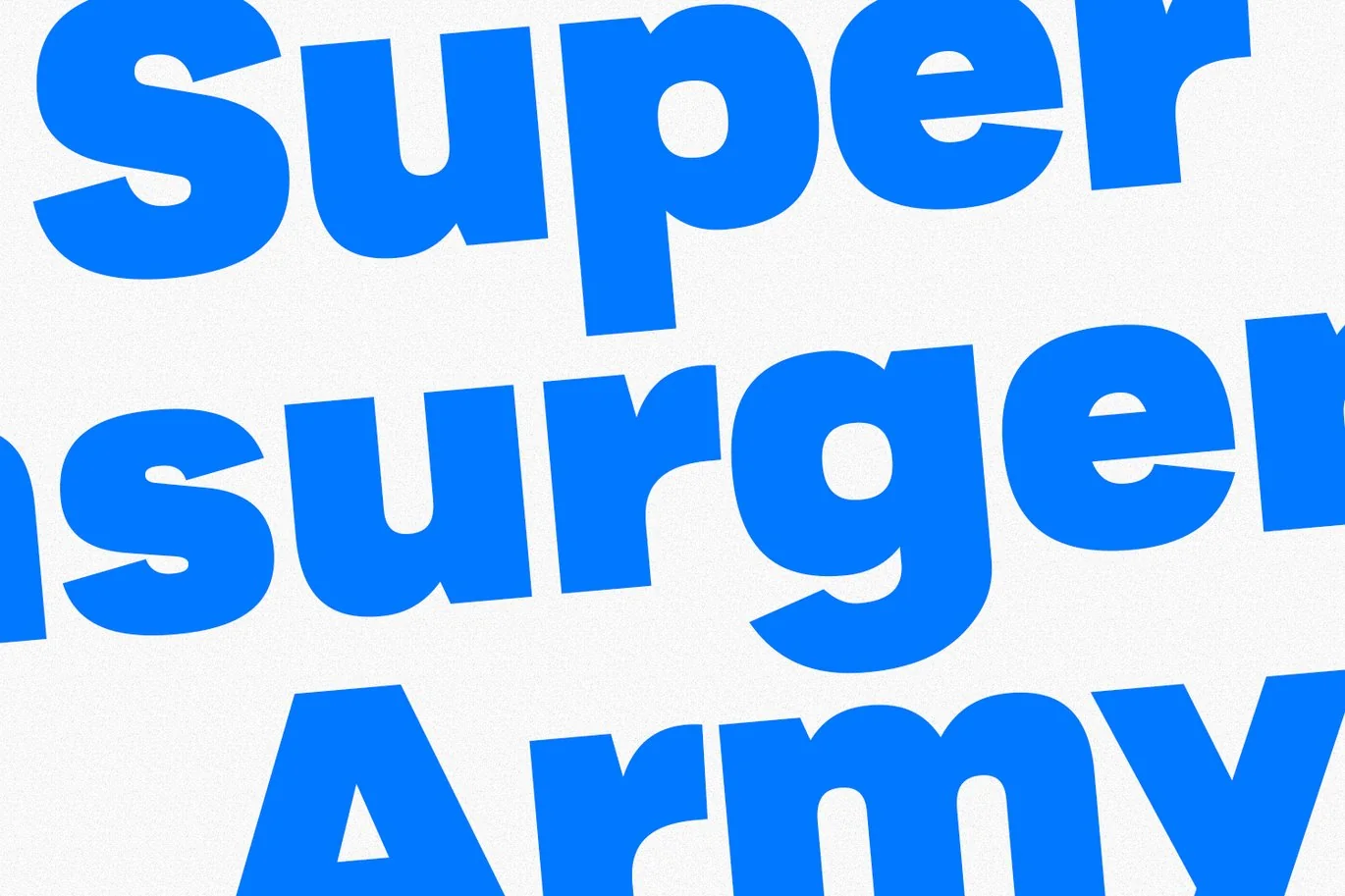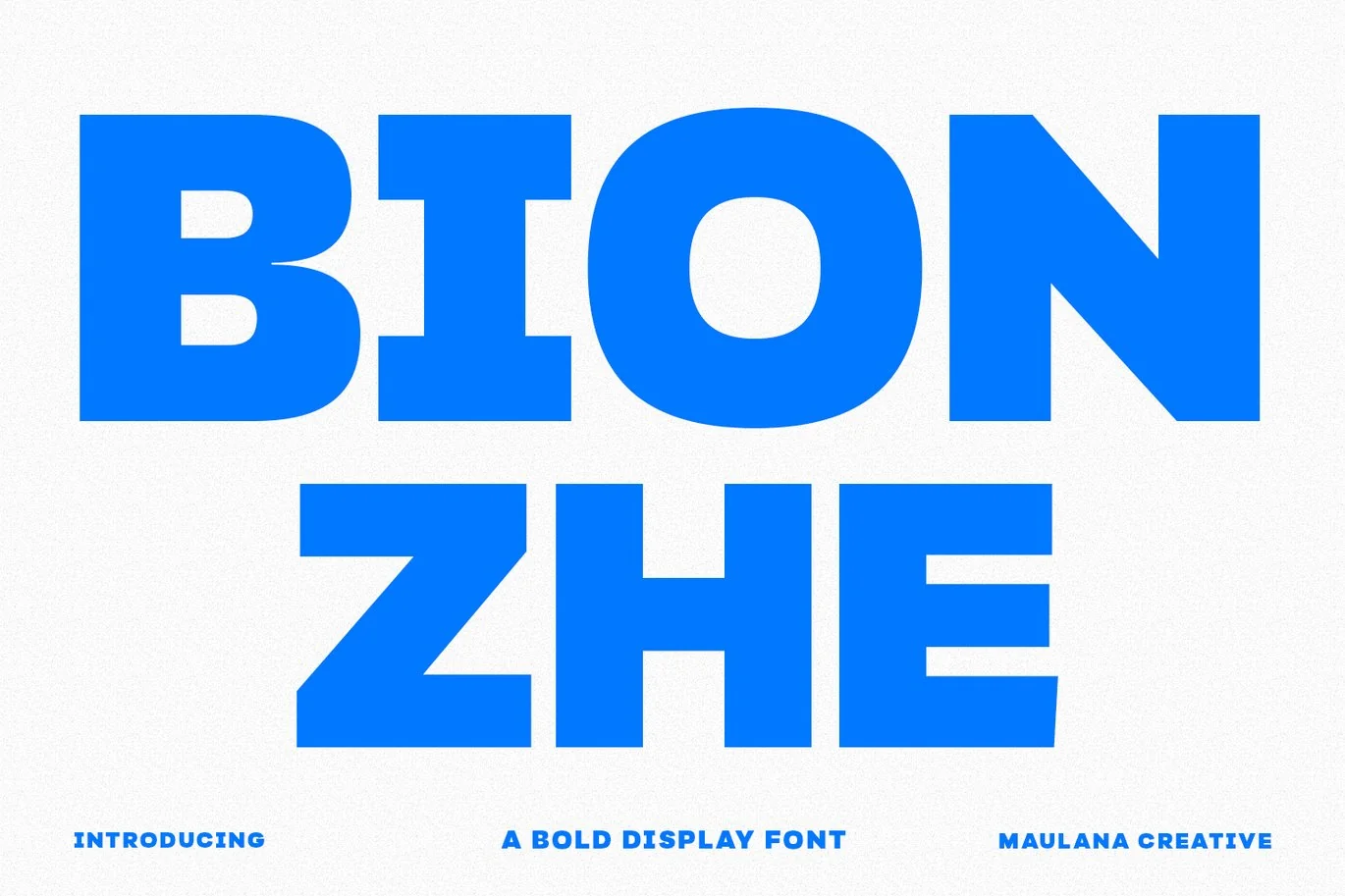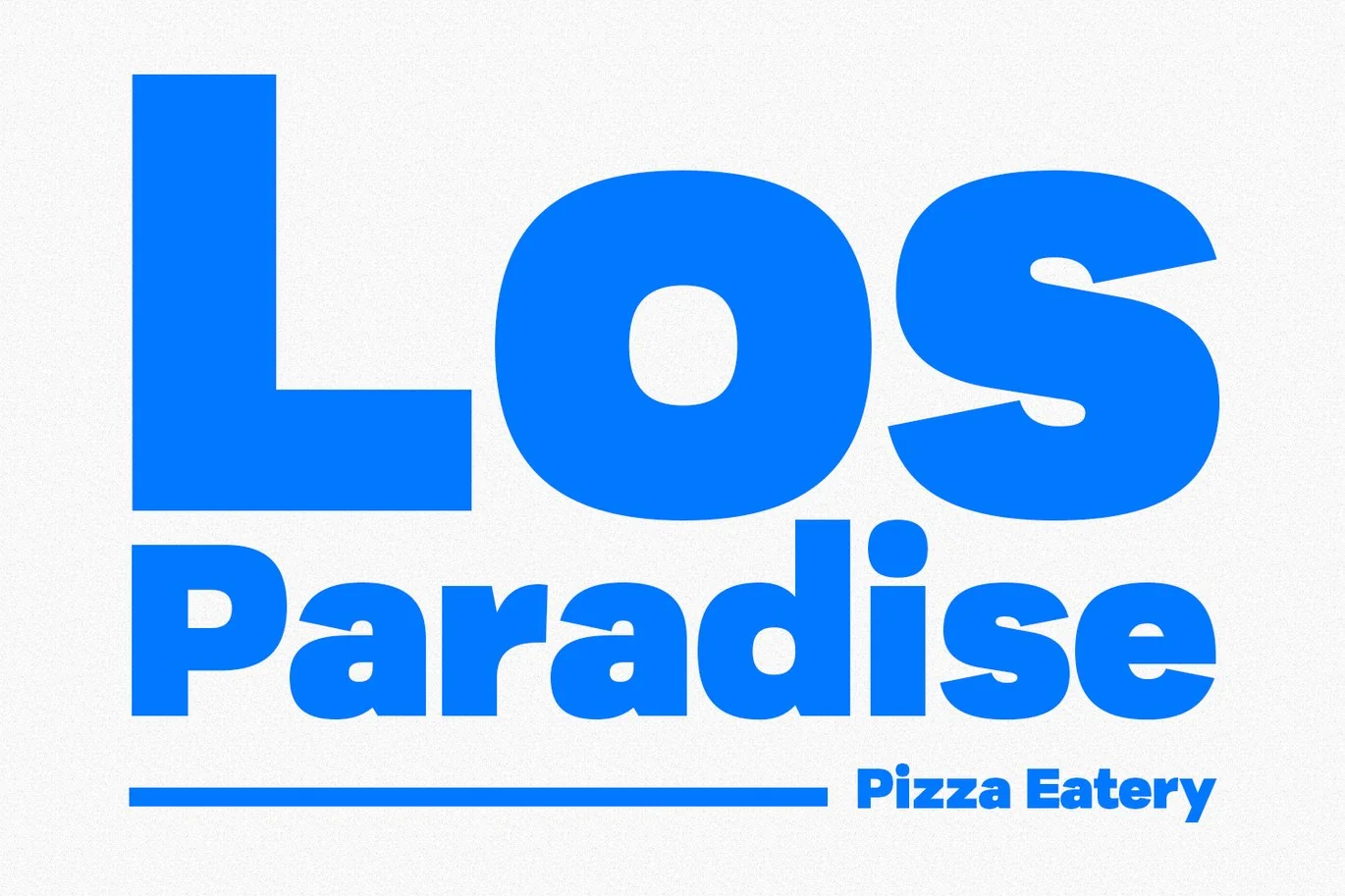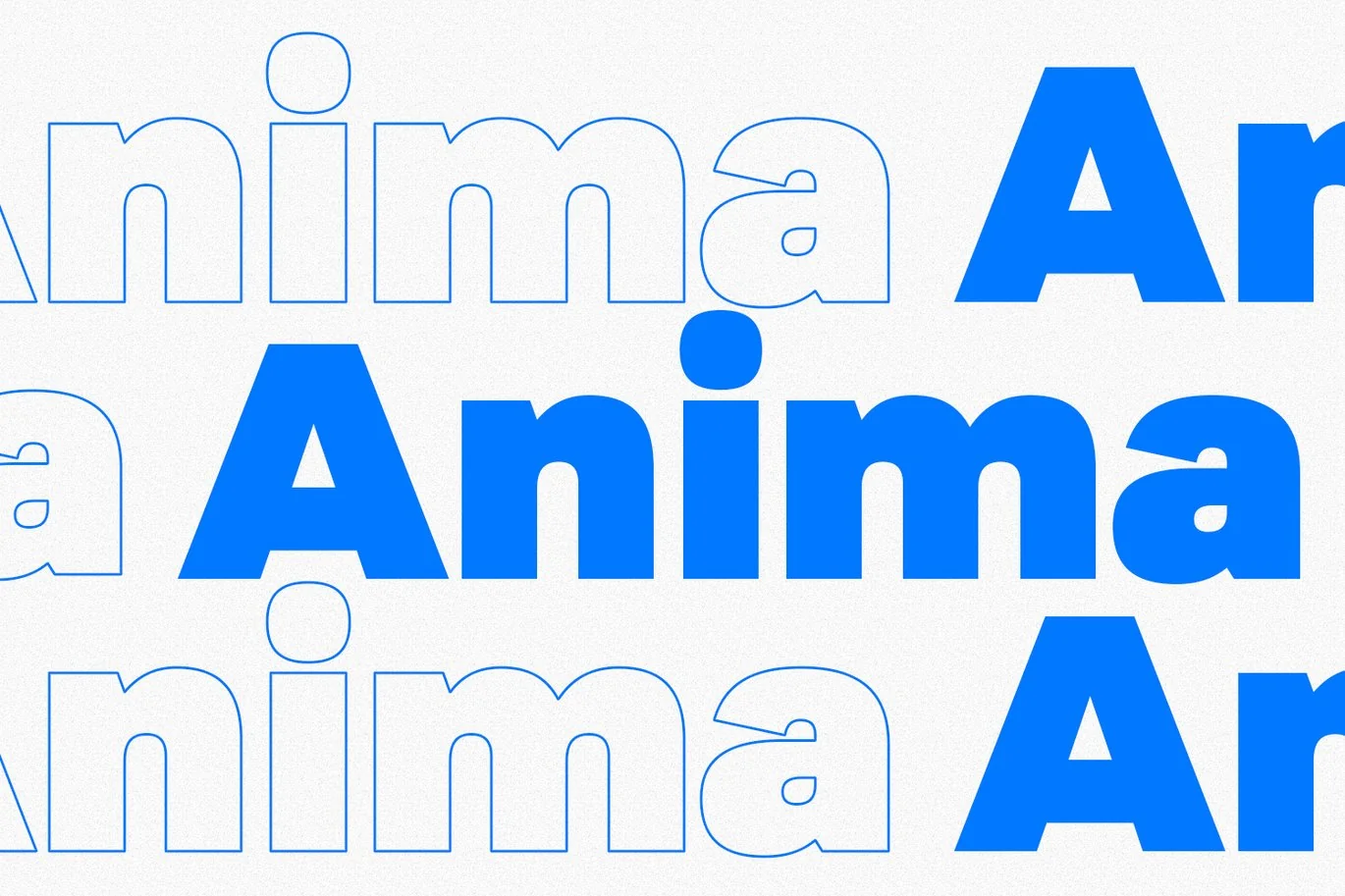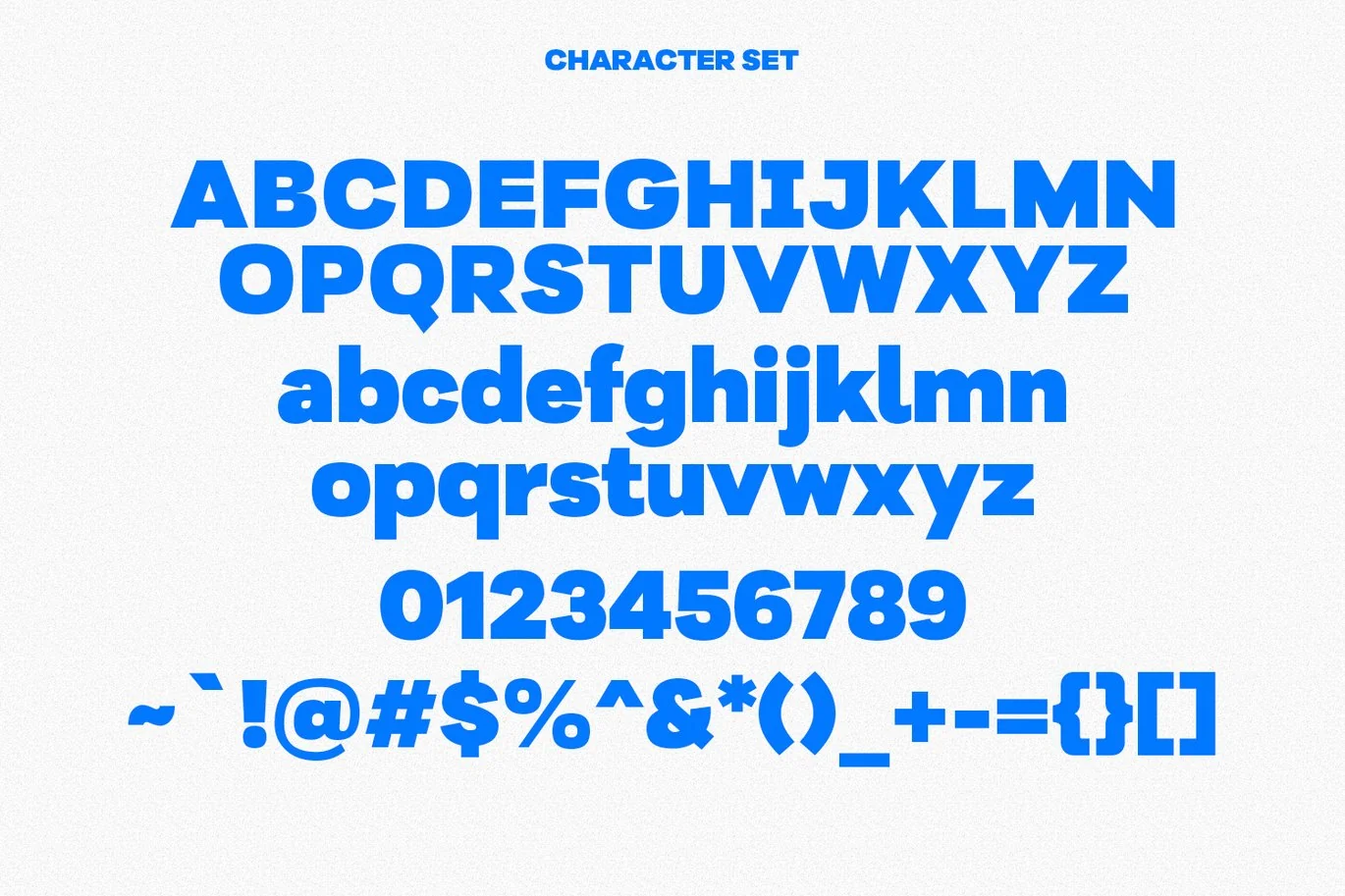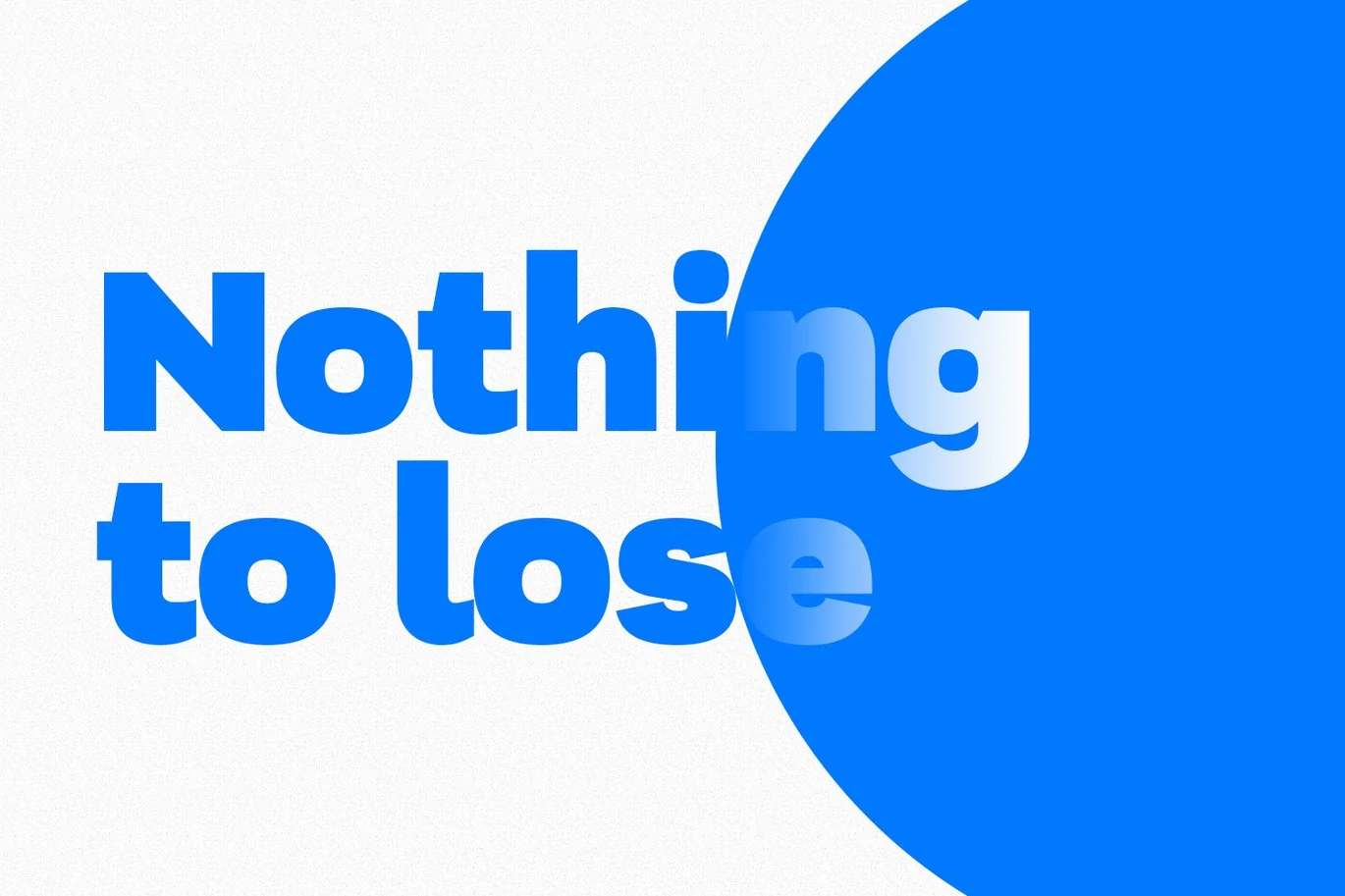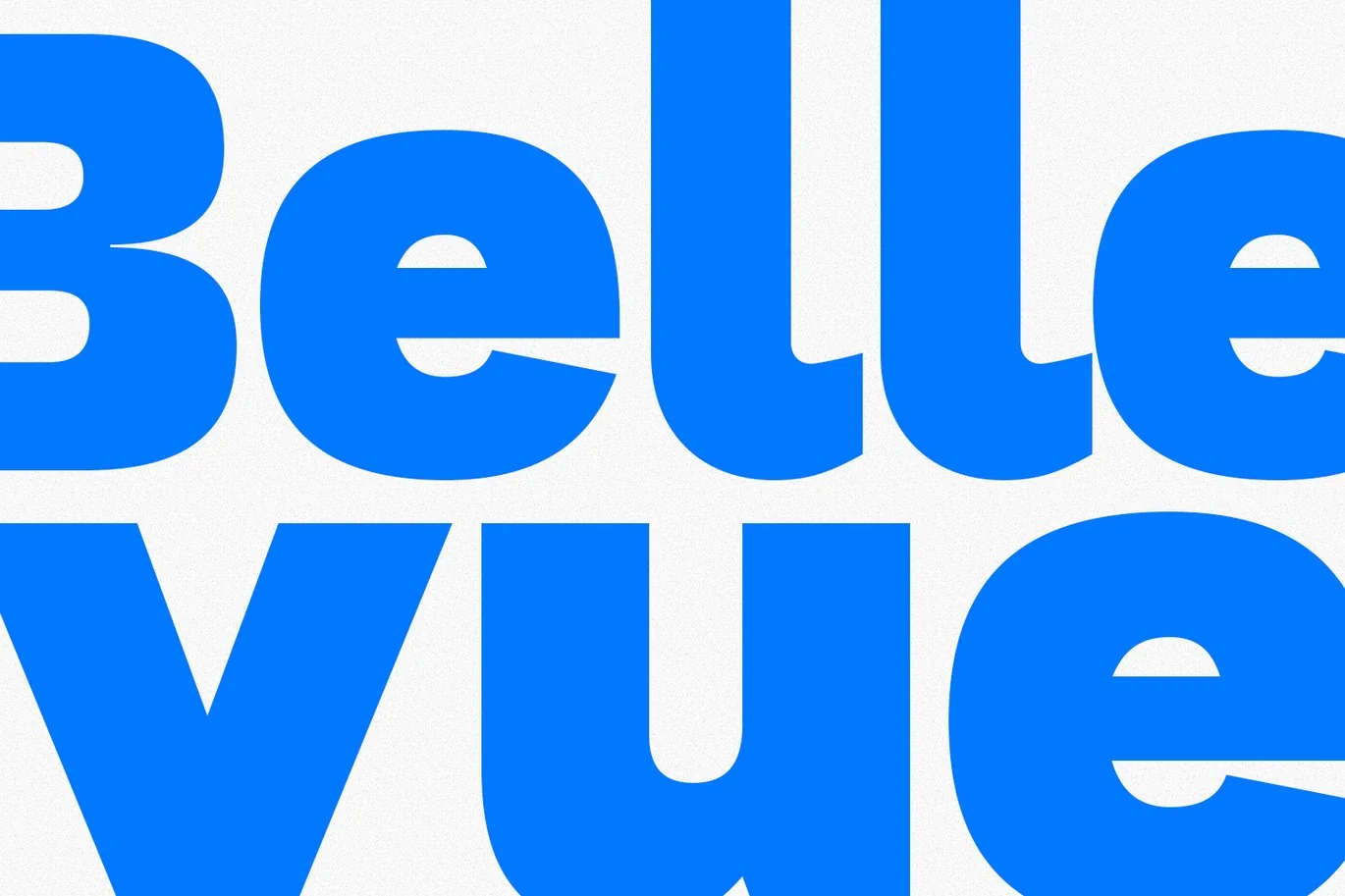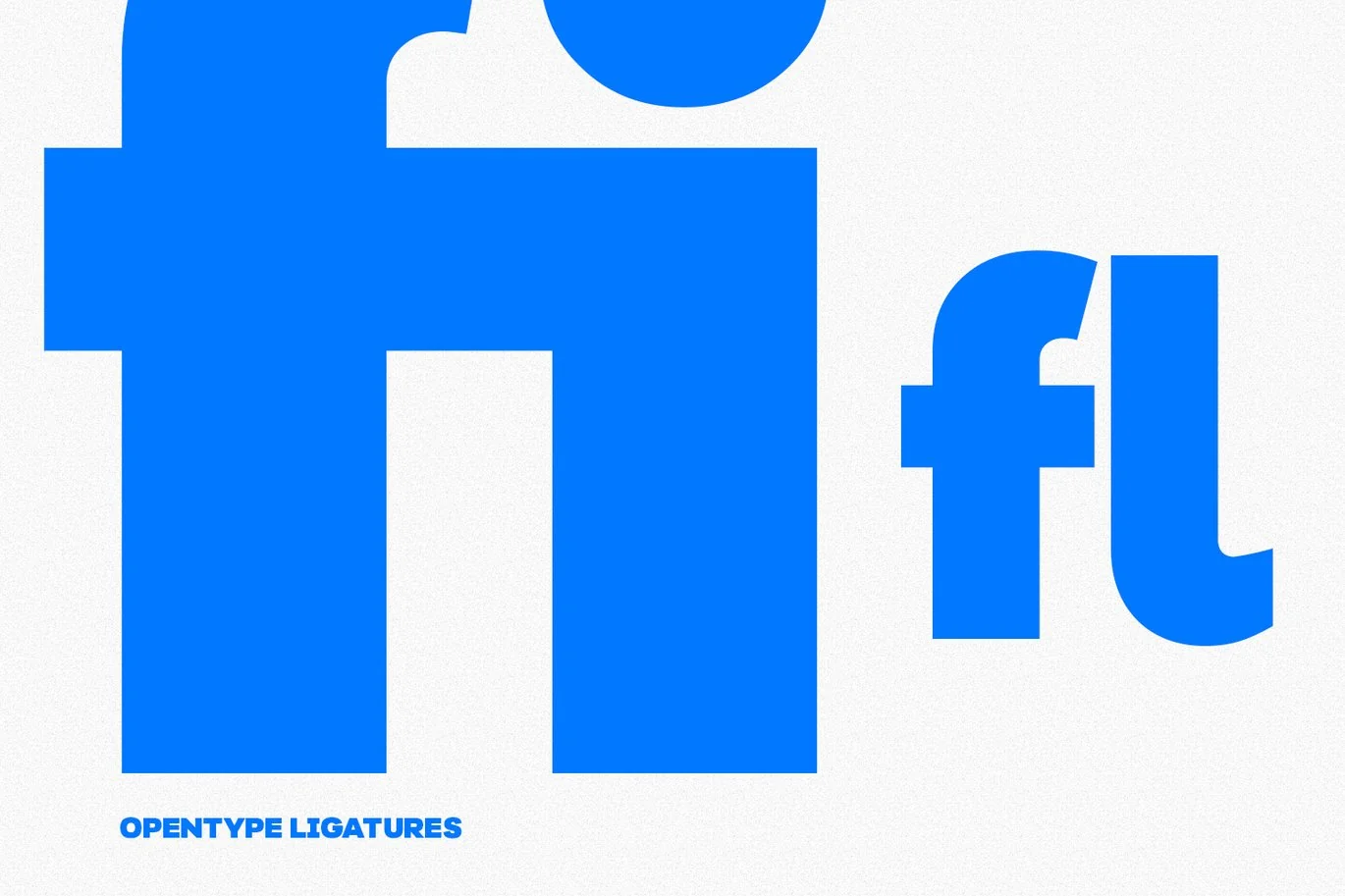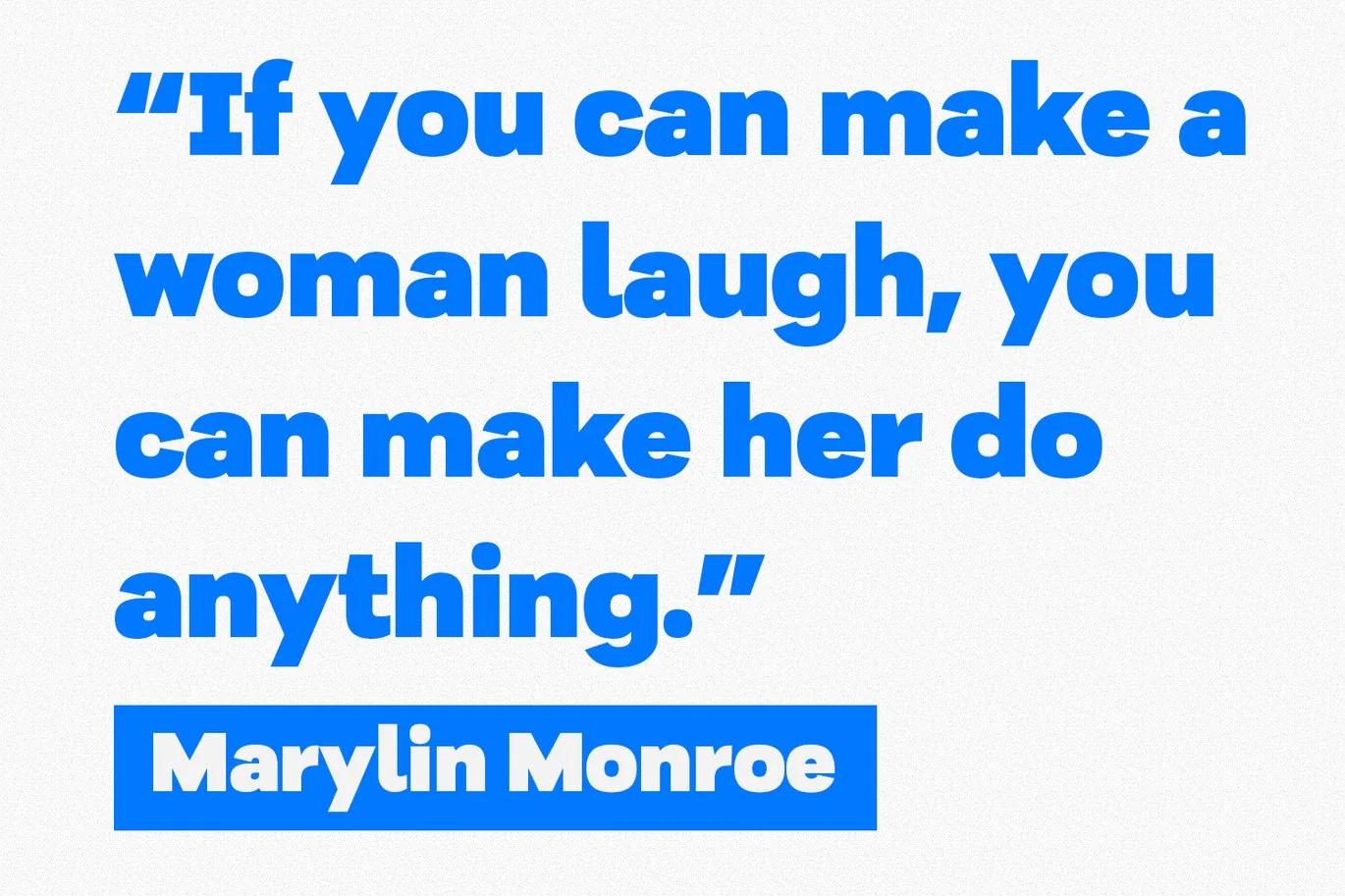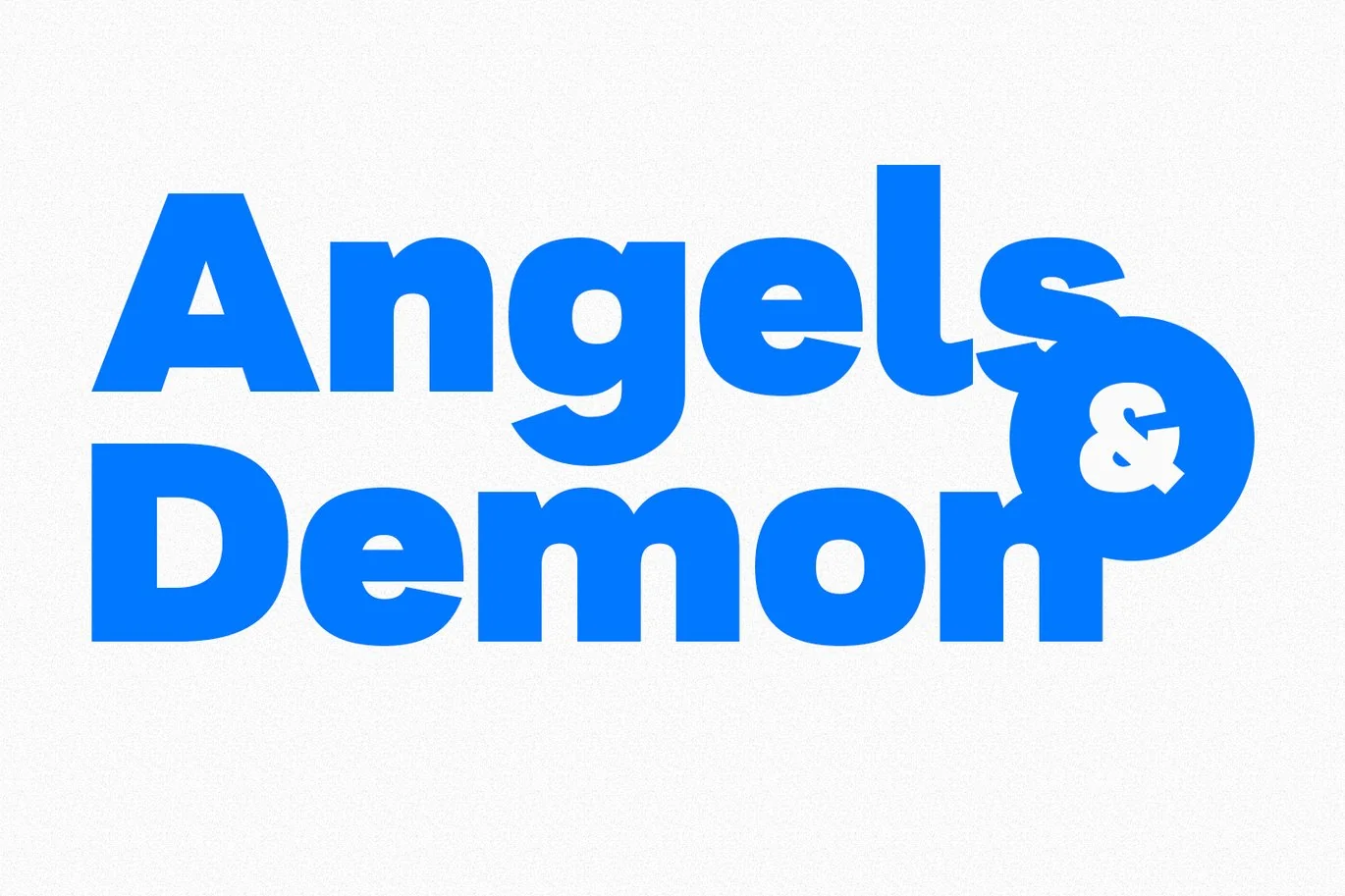
Bionzhe Display Font
Bionzhe is a strong and power vibes font. With ultra bold stroke, fun character with a bit of ligatures and alternates. To give you an extra creative work. Bionzhe font support multilingual more than 100+ language. This font is good for logo design, Social media, Movie Titles, Books Titles, a short text even a long text letter and good for your secondary text font with script. Make a stunning work with Bionzhe font.